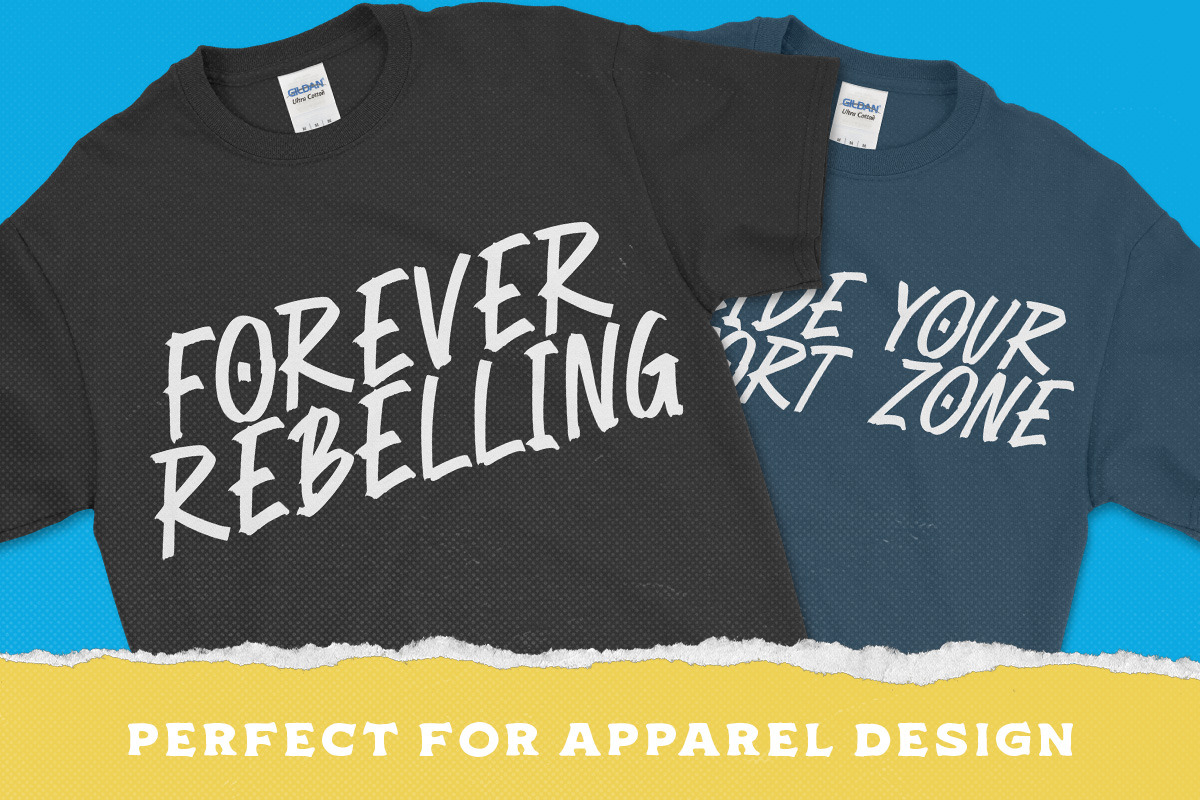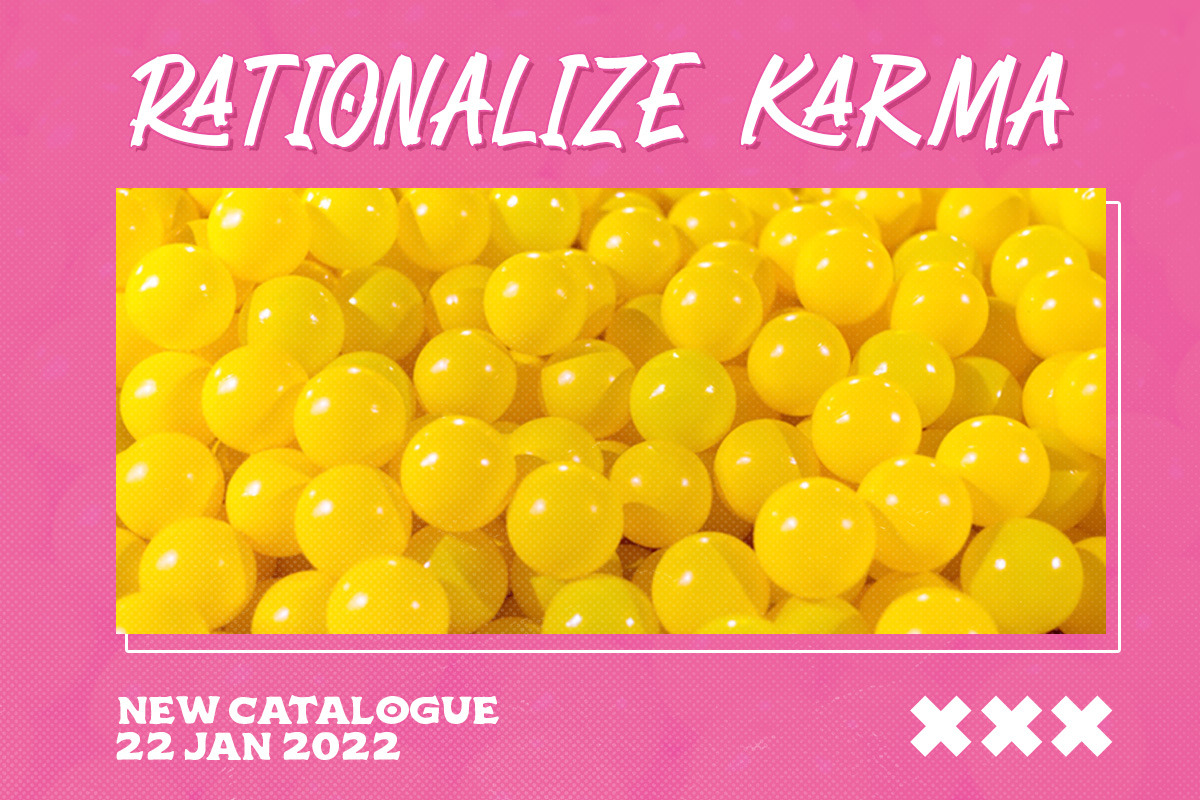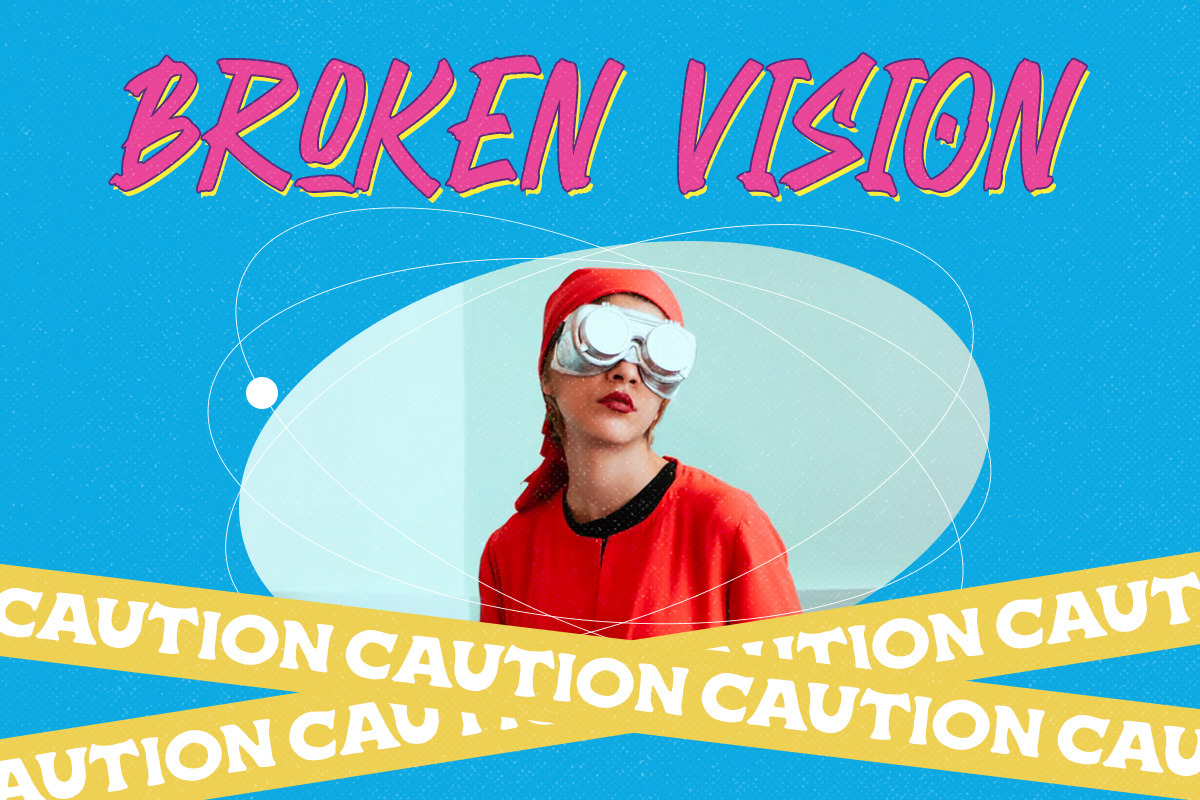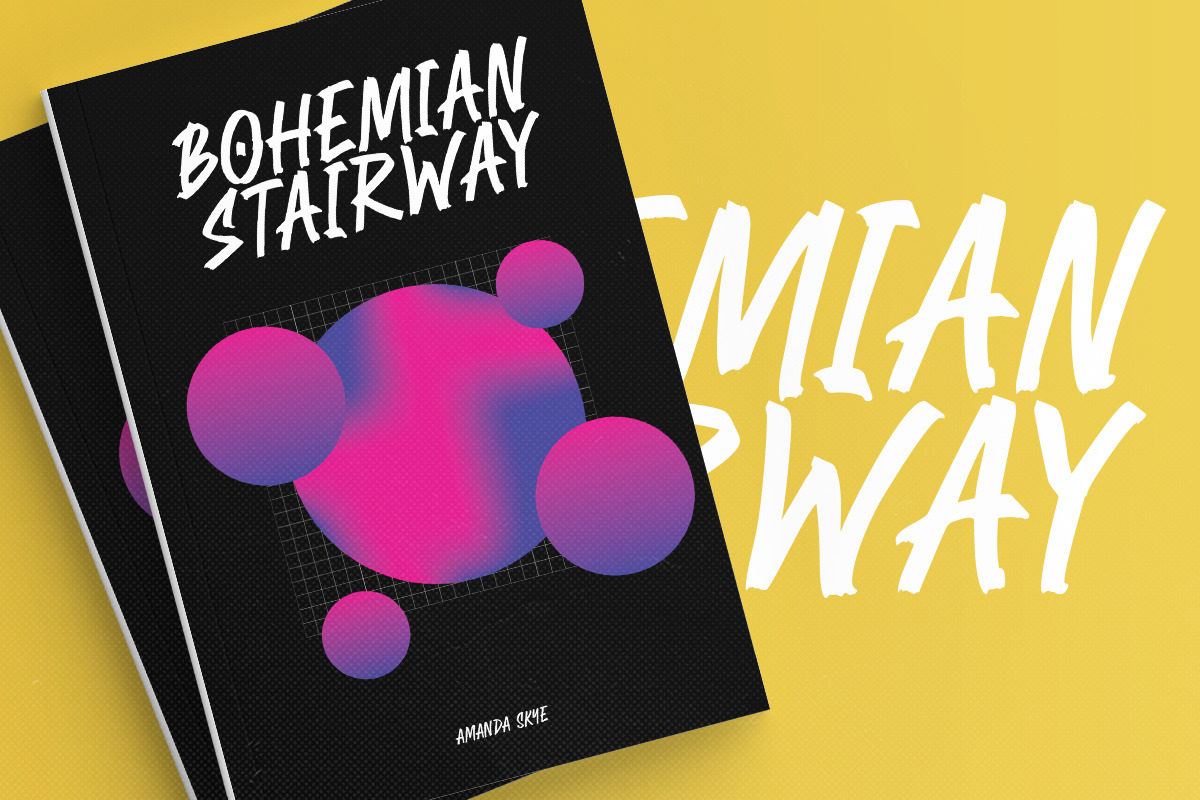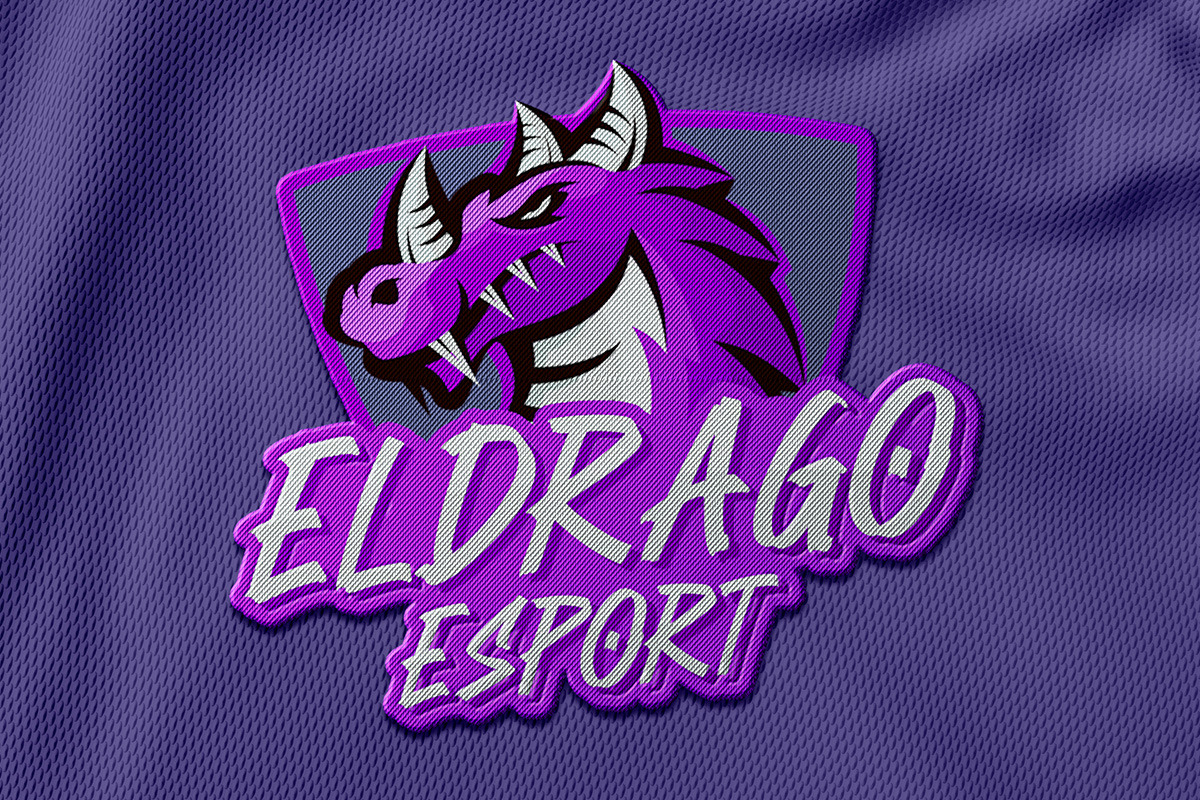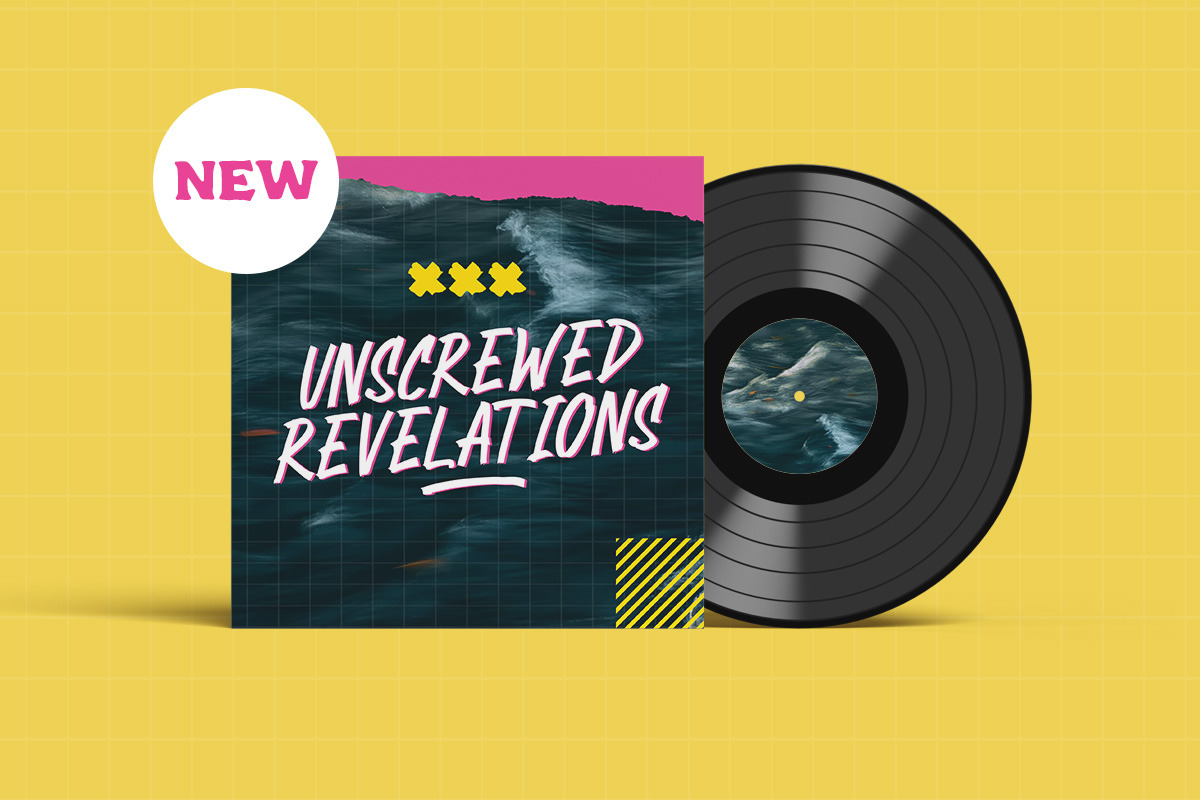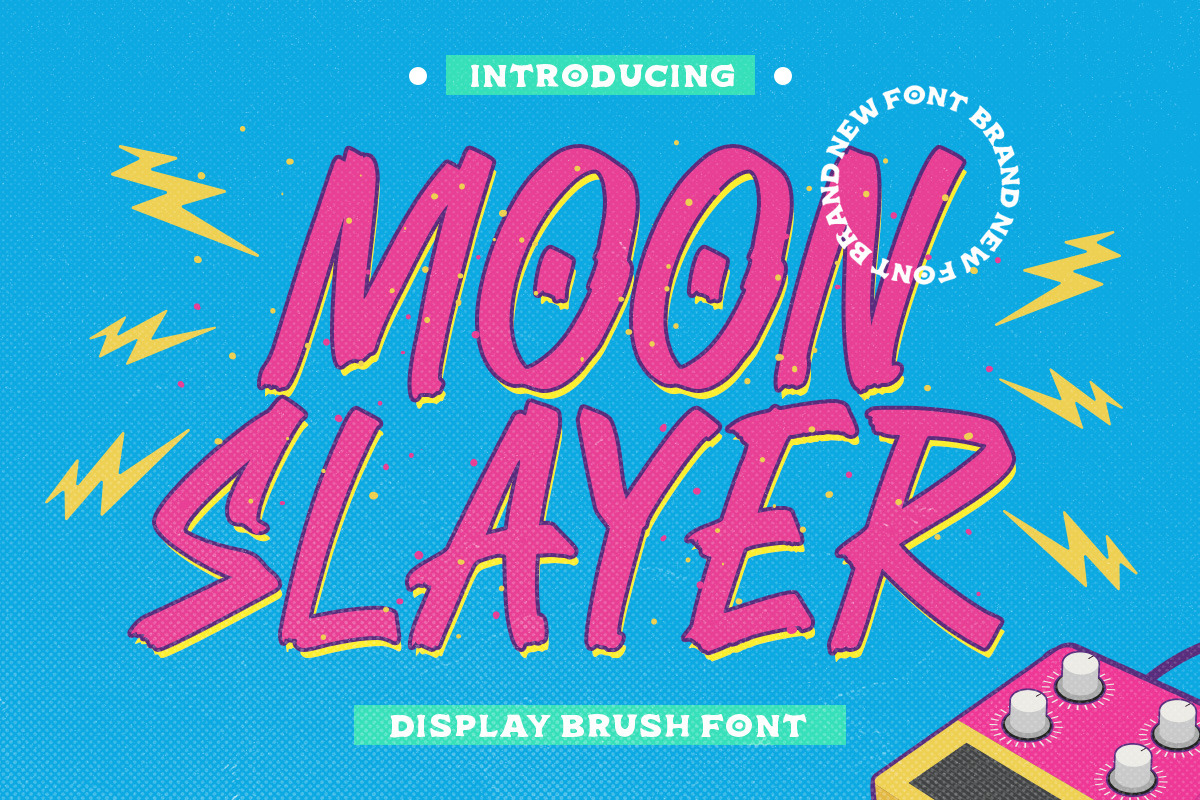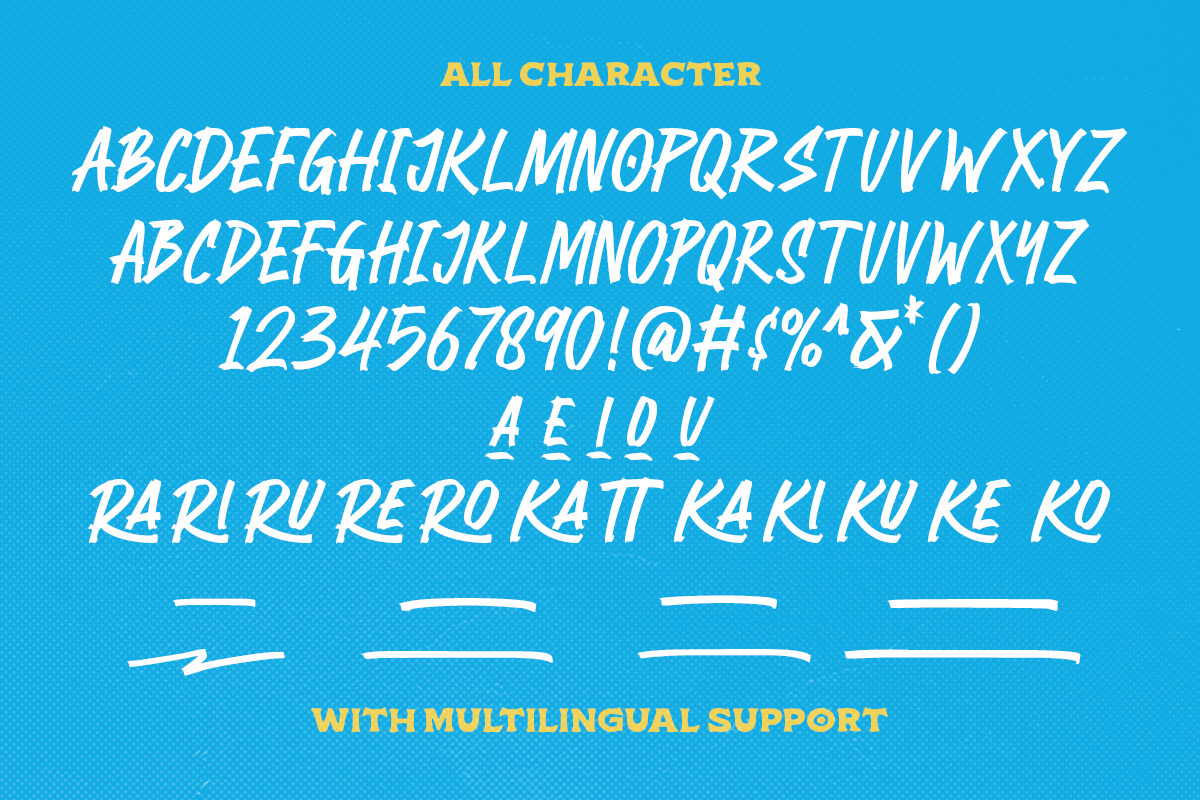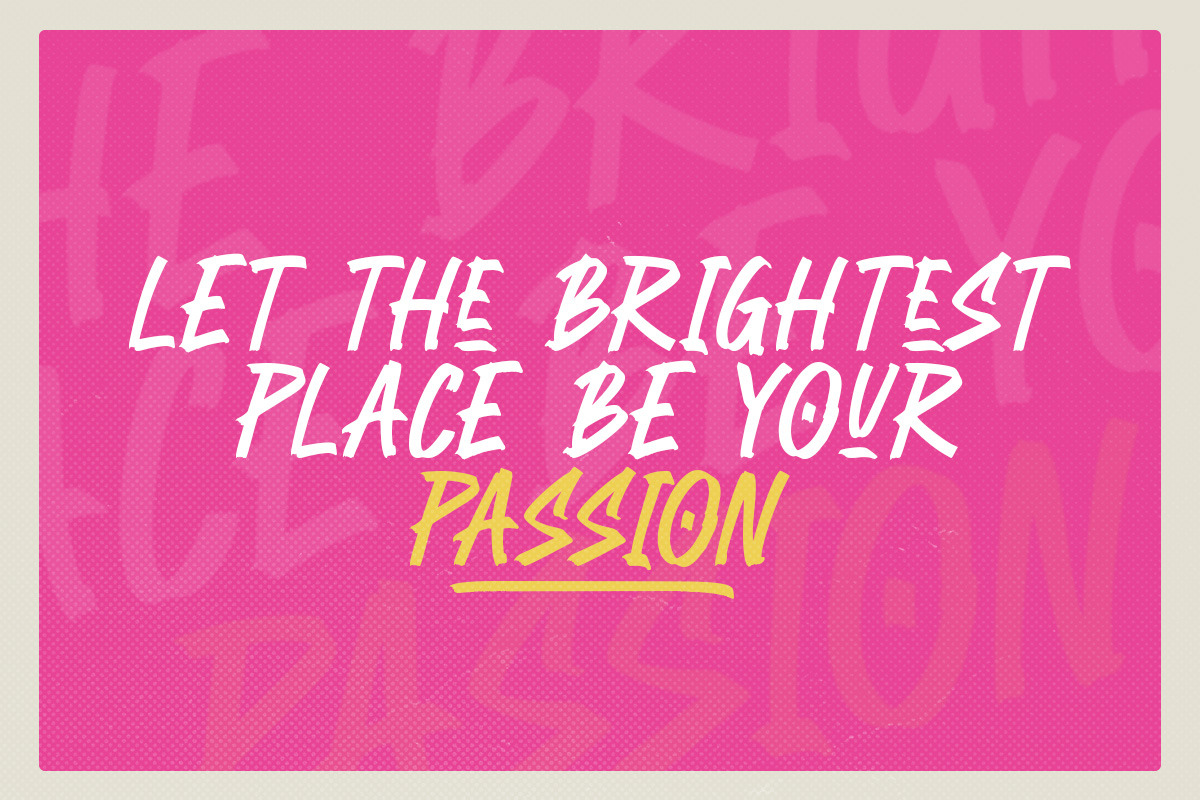
Moon Slayer - Display Brush Font
Moon Slayer is a display brush script font with fun and pop feel. The strokes make this font outstanding and looks great for title. This type of font perfectly made to be applied especially in logo, headline, signage and the other various formal forms such as invitations, labels, logos, magazines, books, greeting / wedding cards, packaging, fashion, make up, stationery, novels, labels or any type of advertising purpose.
- alternates / swashes and ligatures